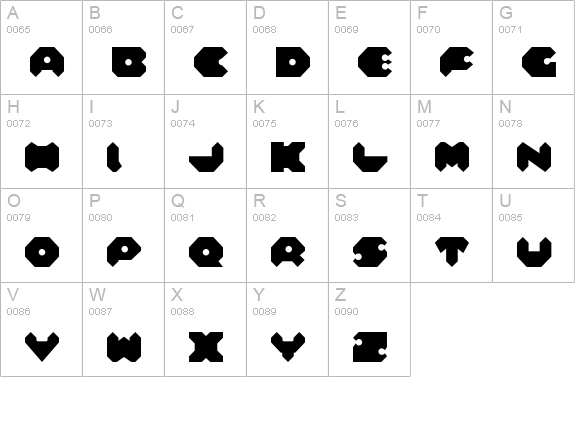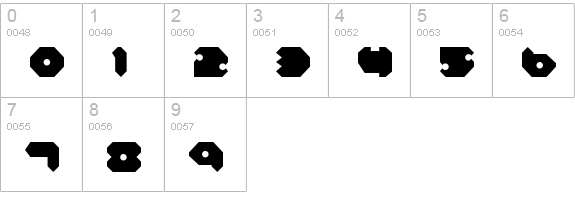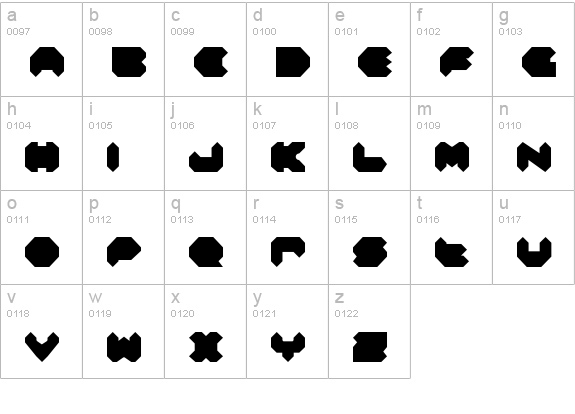
Feldercarb Font Details
Feldercarb font is a modern and stylish typeface that combines sleek lines with a touch of elegance. This versatile font is perfect for a wide range of design projects, from branding to editorial design. Its clean and sophisticated look makes it ideal for both digital and print applications. One of the best features of Feldercarb font is that it is available for free download at FontsMarket.com. This means that you can easily access this high-quality font without any cost, making it a valuable addition to your design toolkit. With its unique character and professional appearance, Feldercarb font is sure to enhance any project it is used in.